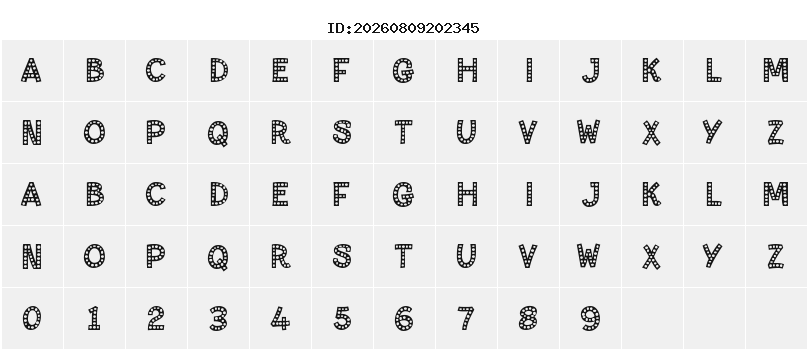
Paltime Marquee Preview
• Font Name: Paltime Marquee
• Designer: Ray Larabie
• Manufacturer: Ray Larabie
About Paltime Marquee.ttf
Paltime Marquee.ttf is a modern, elegant sans-serif font designed for ultimate readability and visual harmony. Perfect for branding, headlines, web design, and print materials.